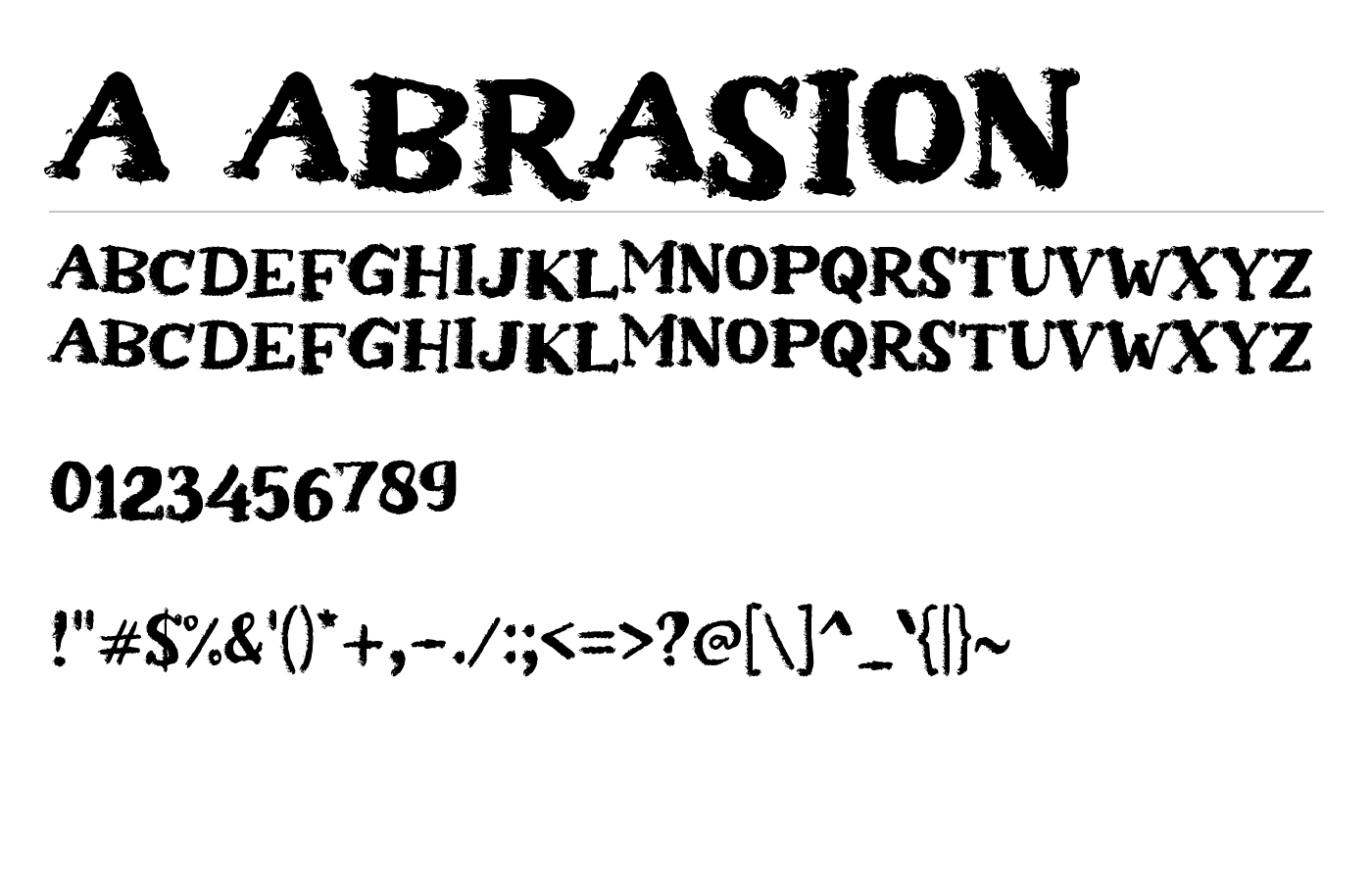
Abrasion is a bold, textured serif font that features a distressed, rough-edged style evoking a worn and rugged feel. With its uppercase-only design and uneven stroke details, it brings a strong, gritty personality ideal for vintage, urban, or industrial-themed branding and headlines. This font works well in posters, logos, and packaging where a bold, impactful statement with a handcrafted appearance is needed.
a Abrasion Font
About a Abrasion Font